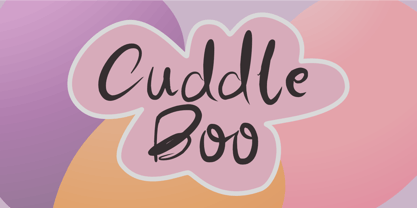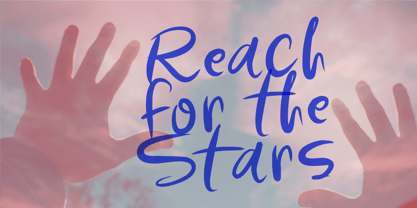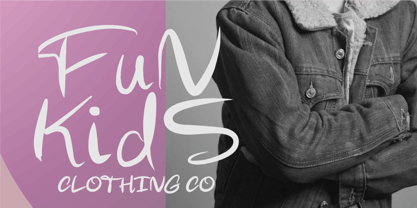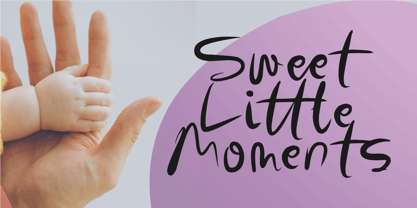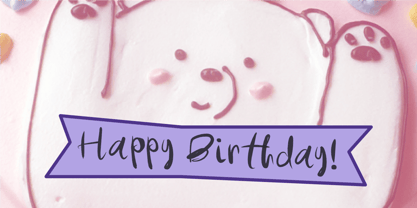
Cuddle Boo
Die Schriftfamilie Cuddle Boo wurde von Nurul Hidayani entworfen und von Olivetype veröffentlicht. Cuddle Boo enthält 1 Stile. Mehr über diese Familie
Cuddle Boo is a sweet and heart-melting handwritten script font designed to capture the warmth of love, innocence, and joyful little moments. With its soft curves, bouncy baseline, and natural hand-drawn flow, this font feels like a cozy hug in letterform. Every stroke carries a playful charm, making it perfect for designs that celebrate affection, family, and childhood memories. Whether you're creating baby announcements, kids’ fashion branding, greeting cards, social media posts, or cute product packaging, Cuddle Boo brings a gentle, lovable personality to your work. Its smooth script style balances readability with a whimsical touch, making it versatile for both headlines and decorative text. Perfect for designers who want to add a sprinkle of sweetness and emotional warmth, Cuddle Boo turns every word into something truly cherishable.
Designer: Nurul Hidayani